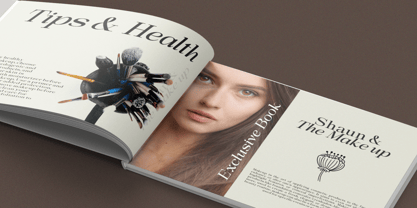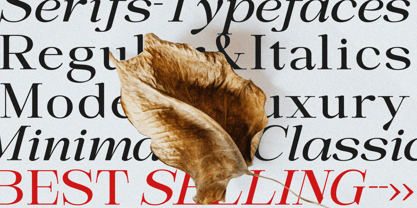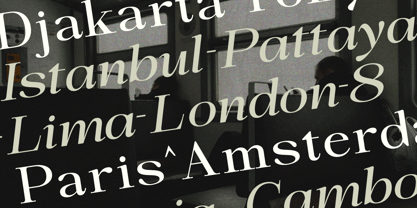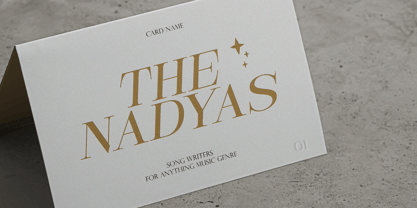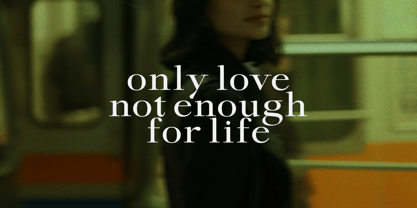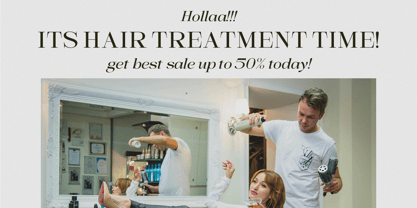
Sandyland Serif
The Sandyland Serif Font Family was designed by Fahmi Iman and published by Spectype. Sandyland Serif contains 2 styles and family package options.
Introducing the new Sandyland Modern with Italic Serif!!! Sandyland is a modern, elegant, and sophisticated serif font, perfect for headlines, text fonts, logos, branding, magazines, product packaging, and invitations. Sandyland features clean lines and smooth curves, adding an extra touch of class to any project.
Sandyland comes in both Regular and Italic versions, with numbers, punctuation, and support for other languages.